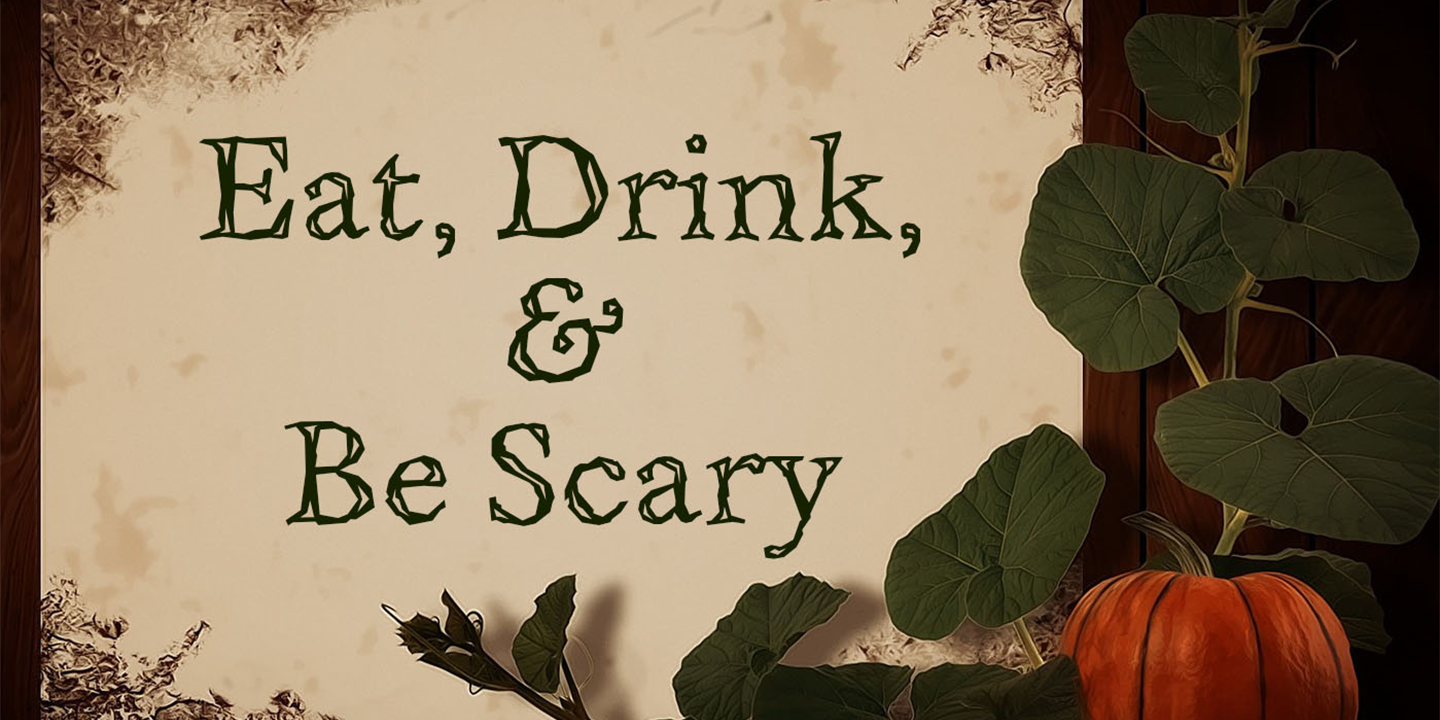
The ITC Eastwood Font is an excellent choice for designs that aim for a robust, classic, and authentically old-style aesthetic with a clear, reliable presence. Imagine it gracing the pages of a historical document, lending an air of established quality to a heritage brand's logo, or enhancing the timeless feel of a literary publication. It's also perfectly suited for traditional invitations, academic reports, classic book covers, and any project where you want to convey a sense of gravitas, trustworthiness, and enduring elegance. Its strong forms and balanced proportions make it ideal for conveying authority and a distinguished presence.
What makes the ITC Eastwood Font so exciting is its masterful blend of traditional typographical principles with a timeless appeal. It often features well-defined serifs and a solid construction that gives it a distinguished character without feeling overly ornate or dated. This font has an intelligent and authoritative presence that can instantly elevate your design, making it feel both established and inviting. It's designed to provide excellent legibility in both large display sizes and smaller body text, ensuring your message is communicated with clarity and refined grace.
The ITC Eastwood Font family typically includes a comprehensive range of weights, from a lighter, more subtle cut to a robust bold for impactful statements, often accompanied by elegant italic versions. This extensive range provides designers with ample flexibility to create nuanced visual hierarchies and add sophisticated contrast within their typography. With its broad character set, it supports multiple languages, further expanding its global applicability for various prestigious and formal contexts. Explore the refined utility of ITC Eastwood Font Free Download for your next demanding project.